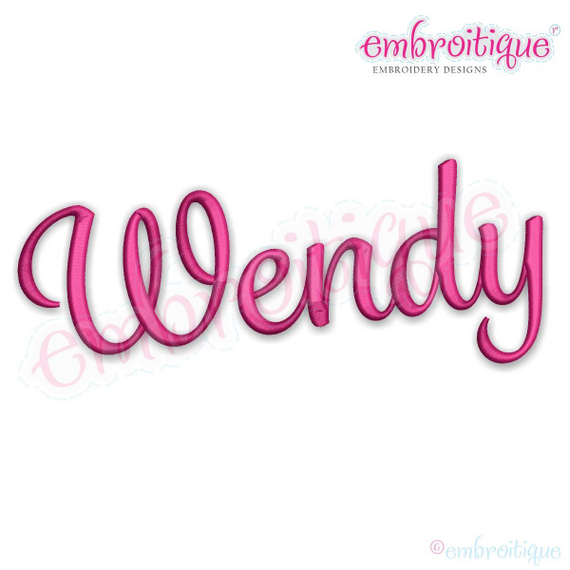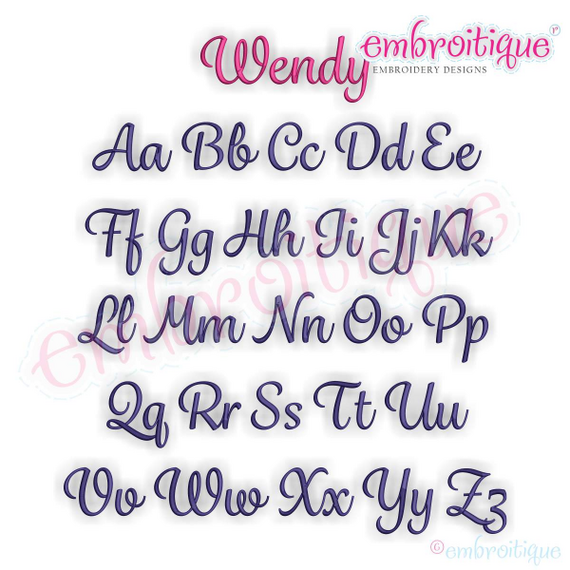
Wendy - Small - Upright Script Machine Embroidery Font
You will use this font often with it's easy, versatile style.
Includes:
0-9
Aa-Zz
punctuation pictured in listing photo